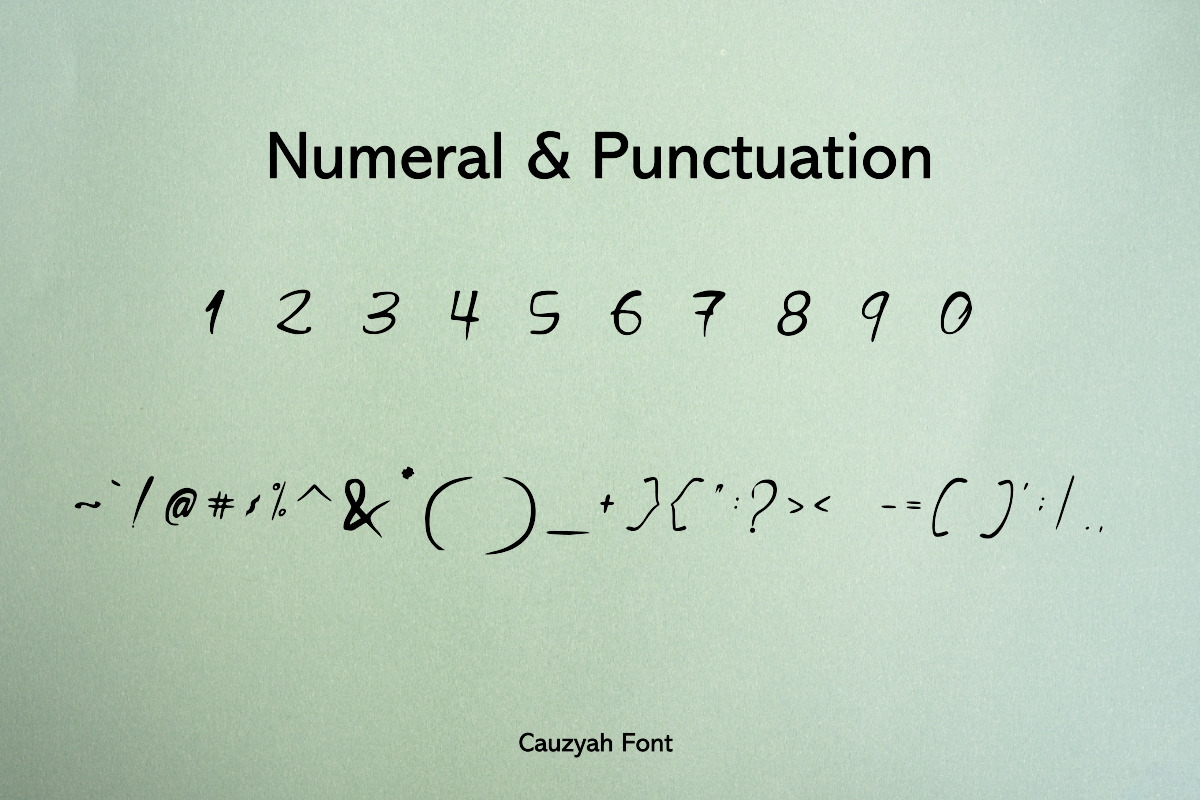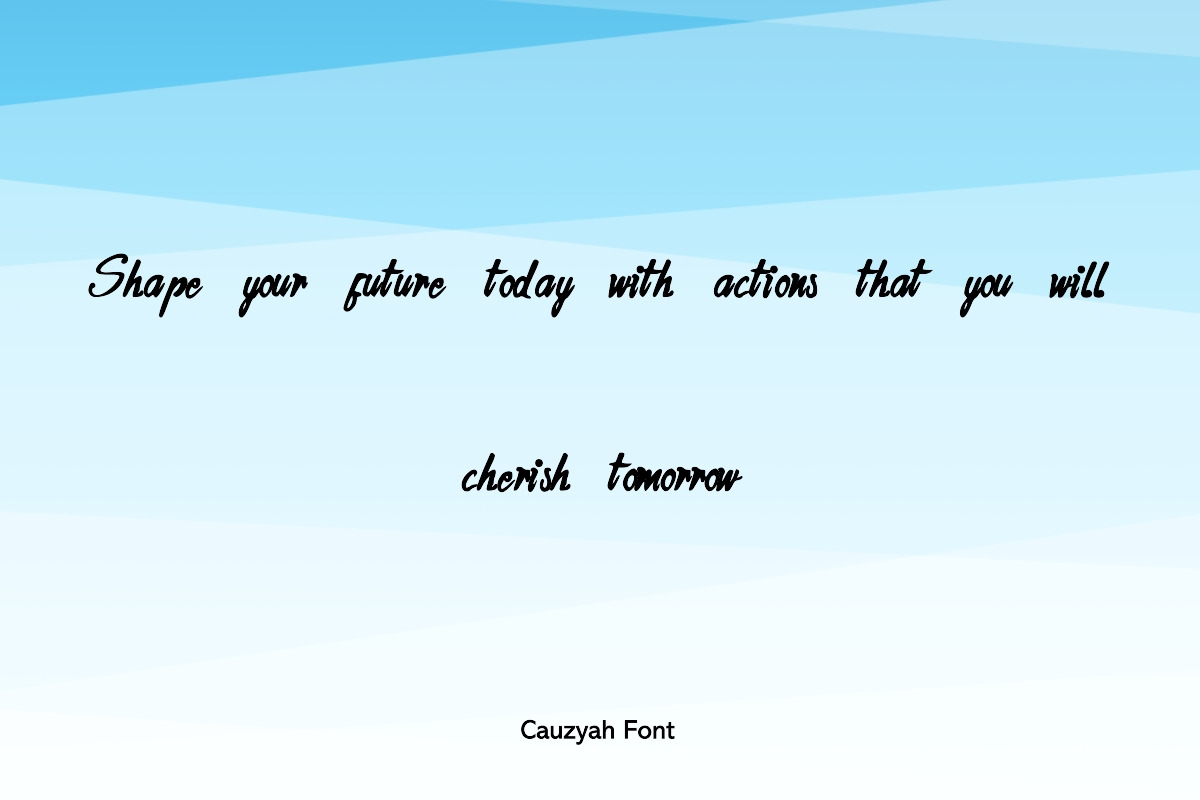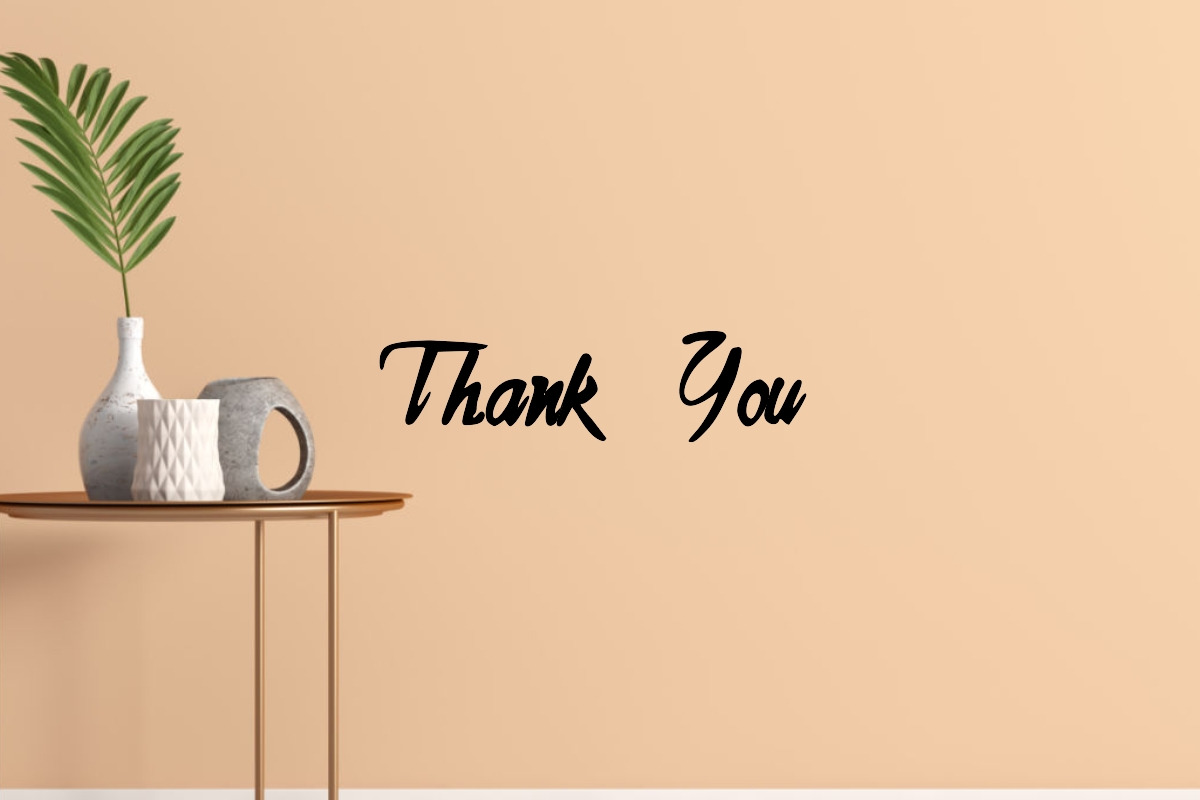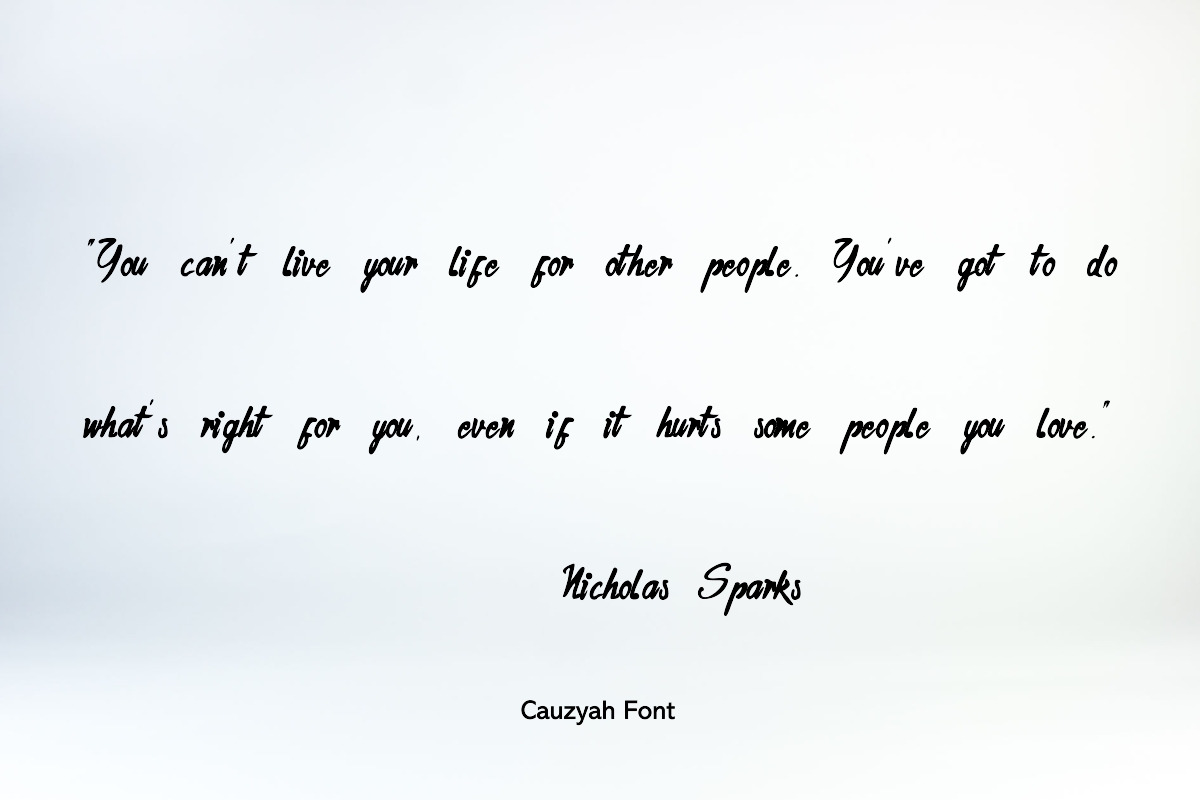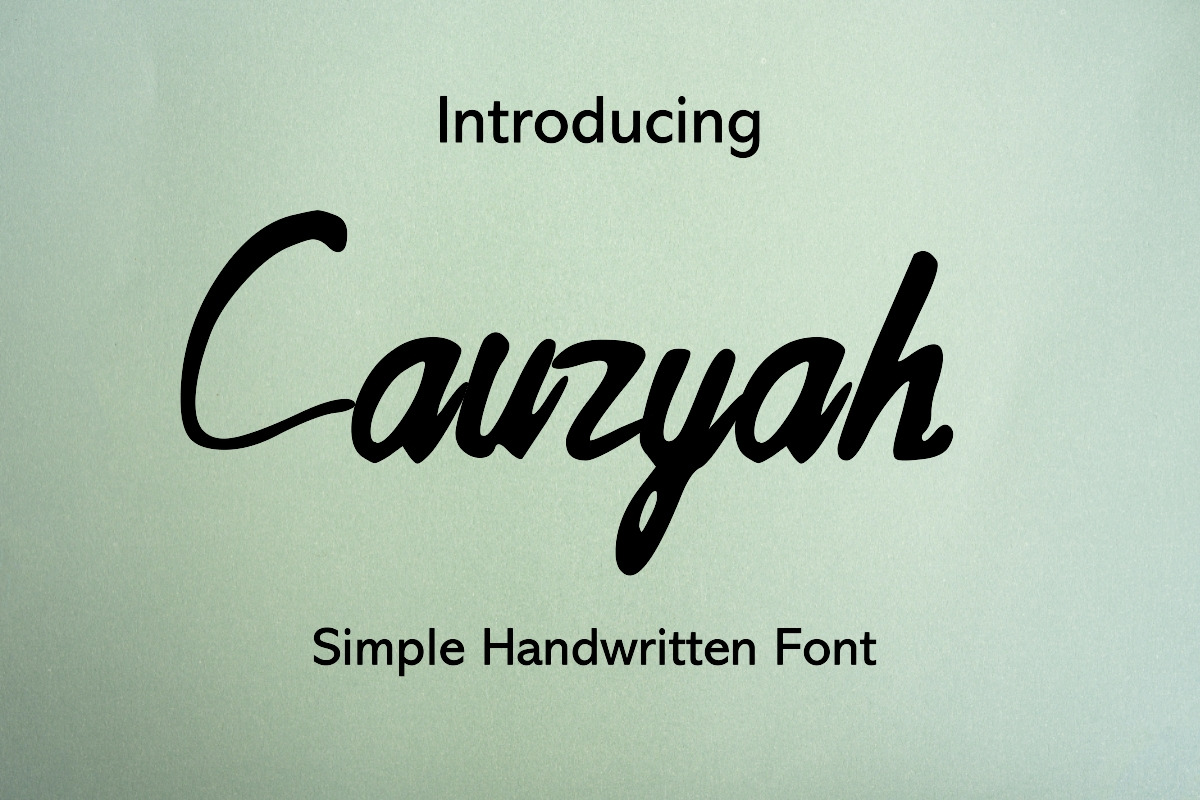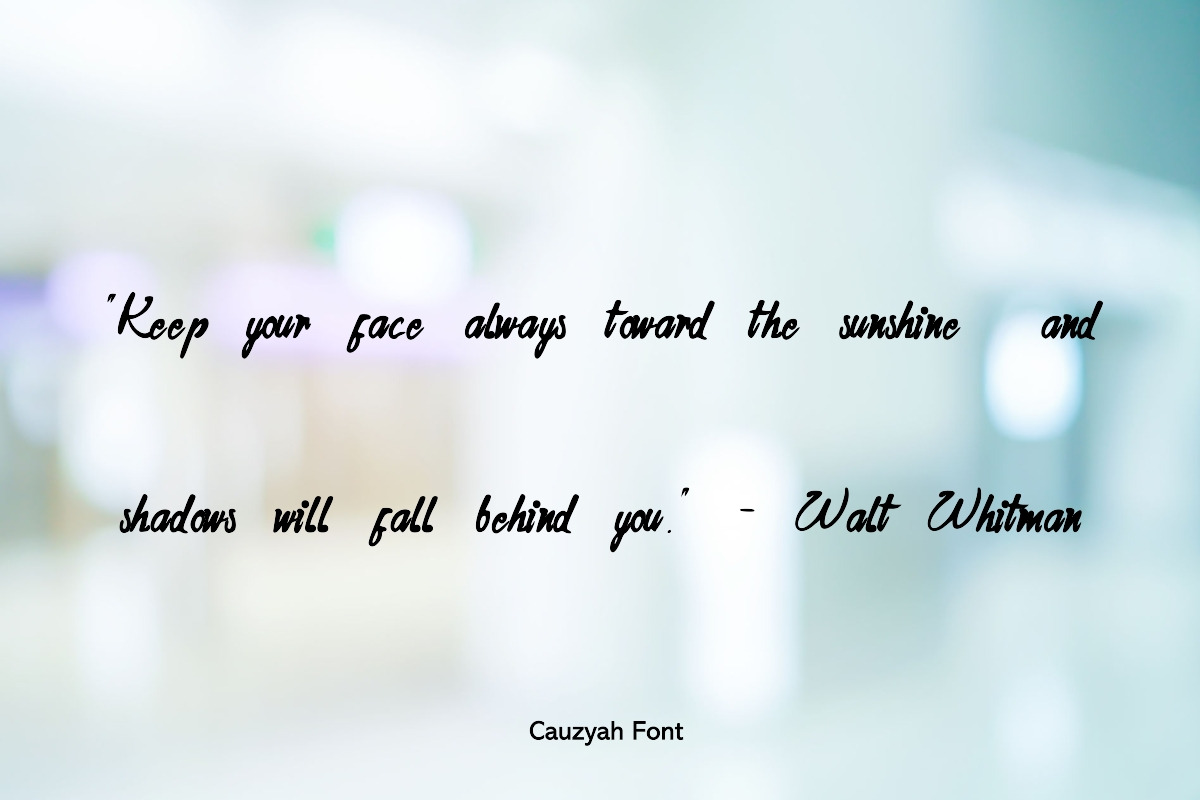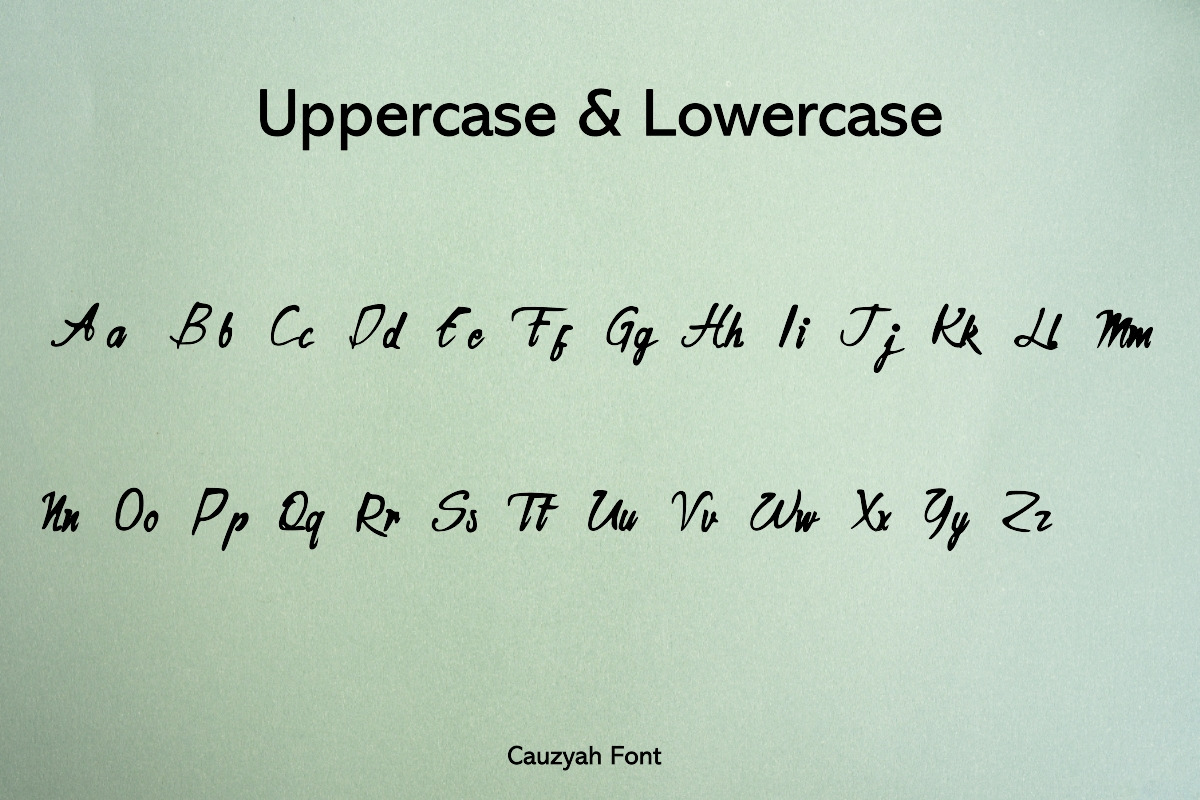
Cauzyah Modern Handwritten Font
'Cauzyah' – A Modern Handwritten Font with a Personalized Touch
Introducing 'Cauzyah', a modern handwritten font that encapsulates the essence of personal expression with a contemporary twist. Its sleek and fluid lines are designed to add a touch of individuality and modern sophistication to your digital projects.
- Innovative Branding: Set your brand apart with a font that's as modern as it is personal.
- Stylish Social Media Content: Engage your audience with posts that feature a font as unique and dynamic as your content.
- Chic Invitations: Whether it's a fashion event or a private gathering, Cauzyah adds a modern yet intimate feel.
- Creative Designs: From website headers to graphic prints, Cauzyah brings a fresh and bespoke aesthetic.
Cauzyah is more than just a font; it's a signature style for creators who dare to stand out. It's the perfect blend of the personal touch of handwriting with the clean lines of modern design.